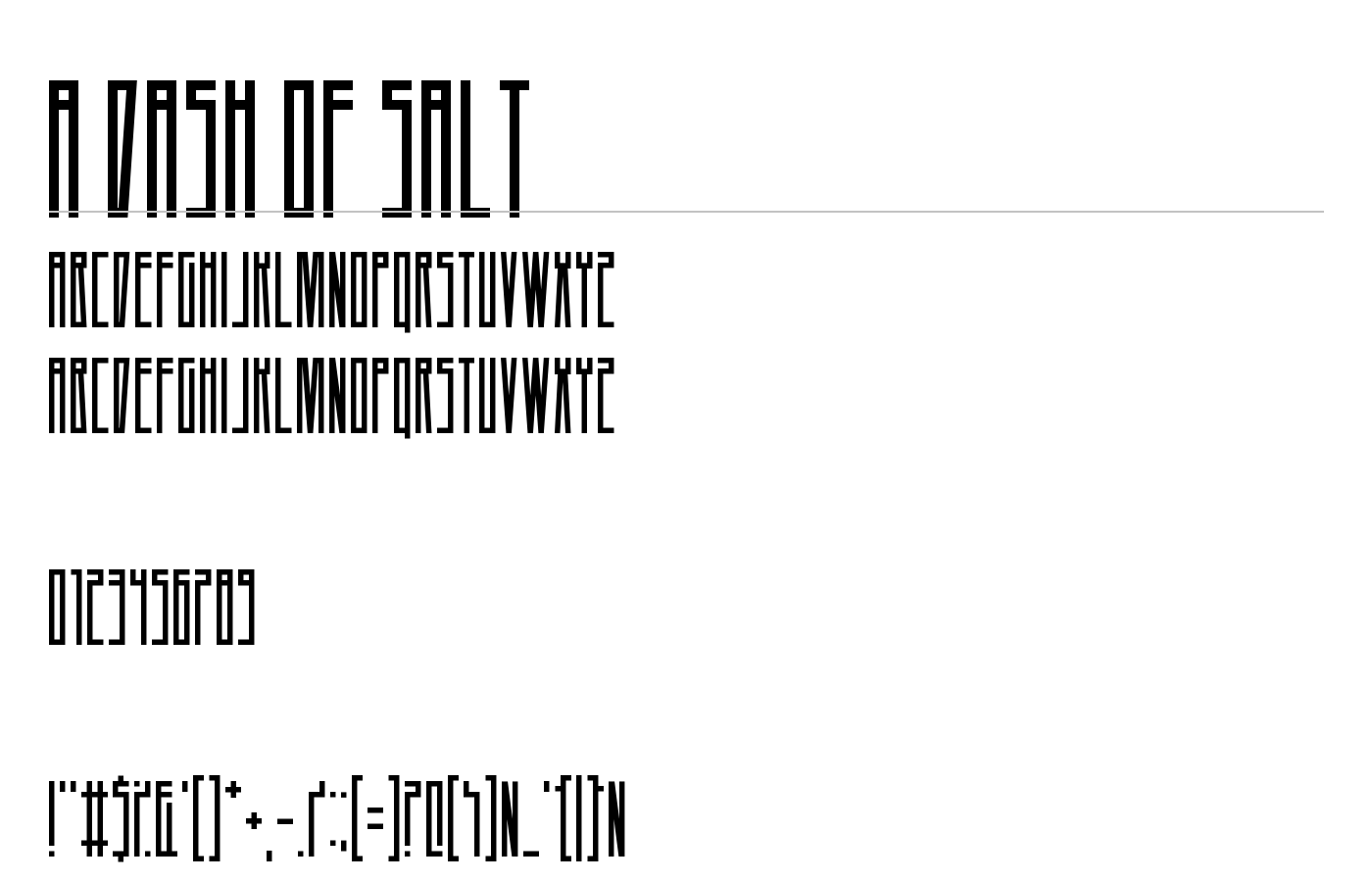
A Dash of Salt is a condensed sans serif font with a tall, narrow structure and a modern, geometric feel. Its high vertical contrast and sharp, clean lines give it a striking, edgy personality perfect for bold headlines, branding, and modern editorial designs that want to convey a stylish and contemporary vibe. This font works well in settings where a sleek, impactful look is needed, especially in fashion, tech, or urban-themed projects.
A Dash of Salt Font